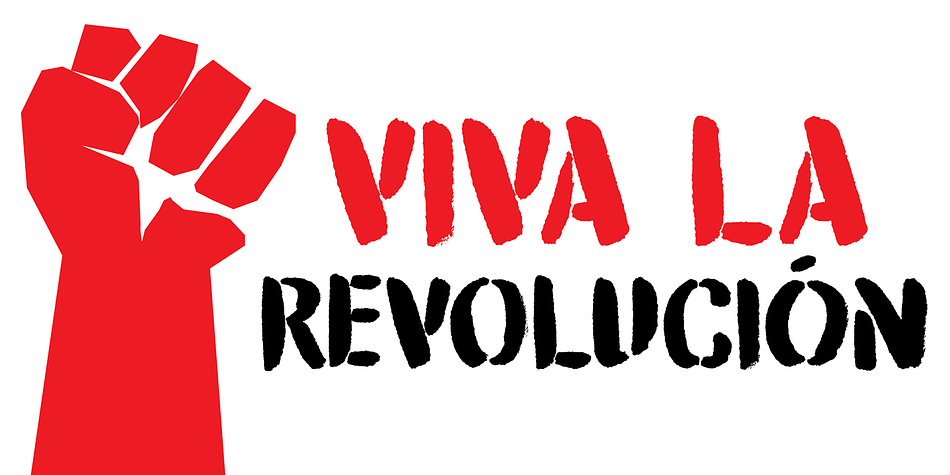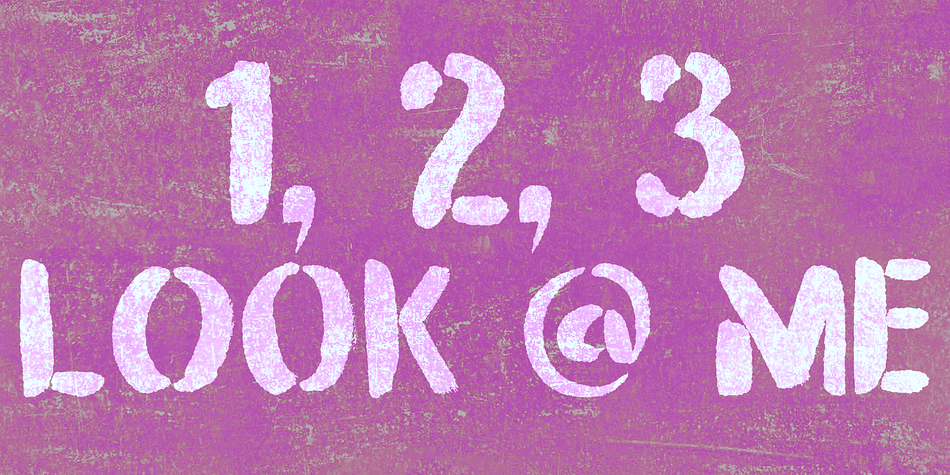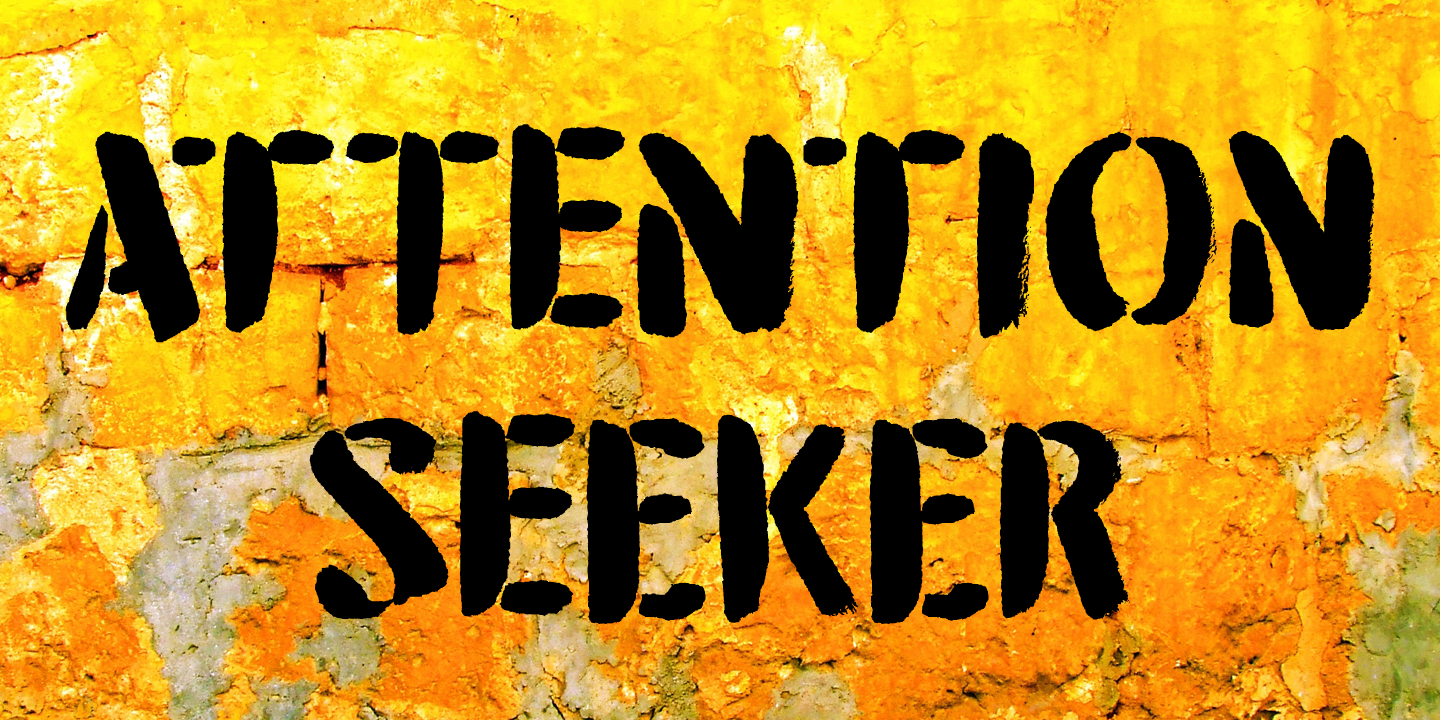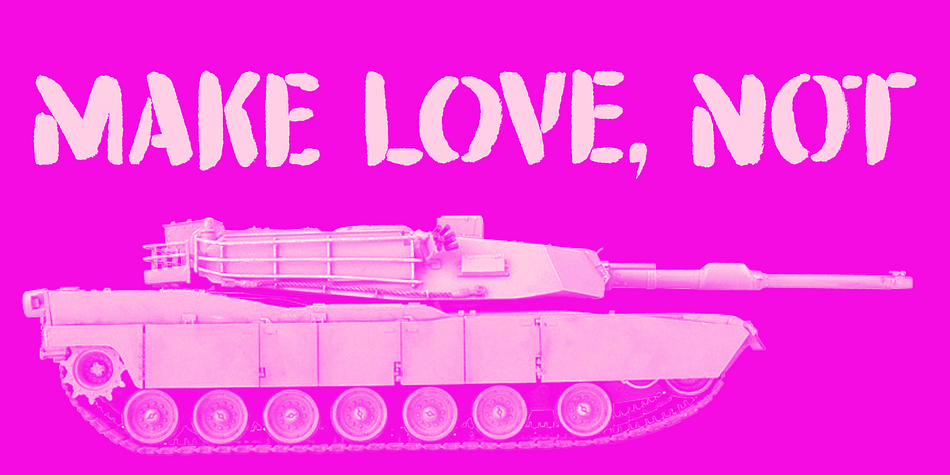
Attention Seeker is a brush display font family. This typeface has two styles and was published by Hanoded.
Attention Seeker does seek attention: it looks like a stencil font, and it sort of is, but it wasn’t made with stencils. It was made with a brush and ink on paper - just like that!
Use Attention Seeker for your revolutionary posters, your books, your products or your posters, I am sure the end result will make heads turn.